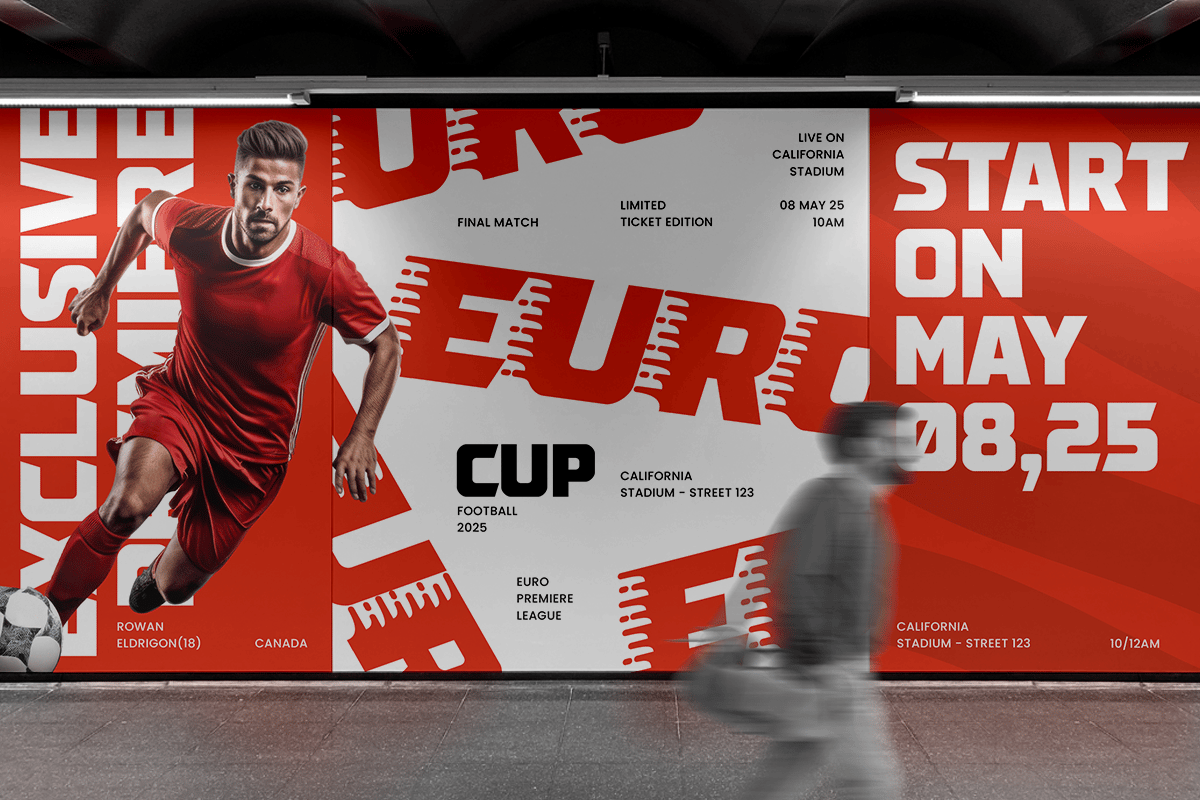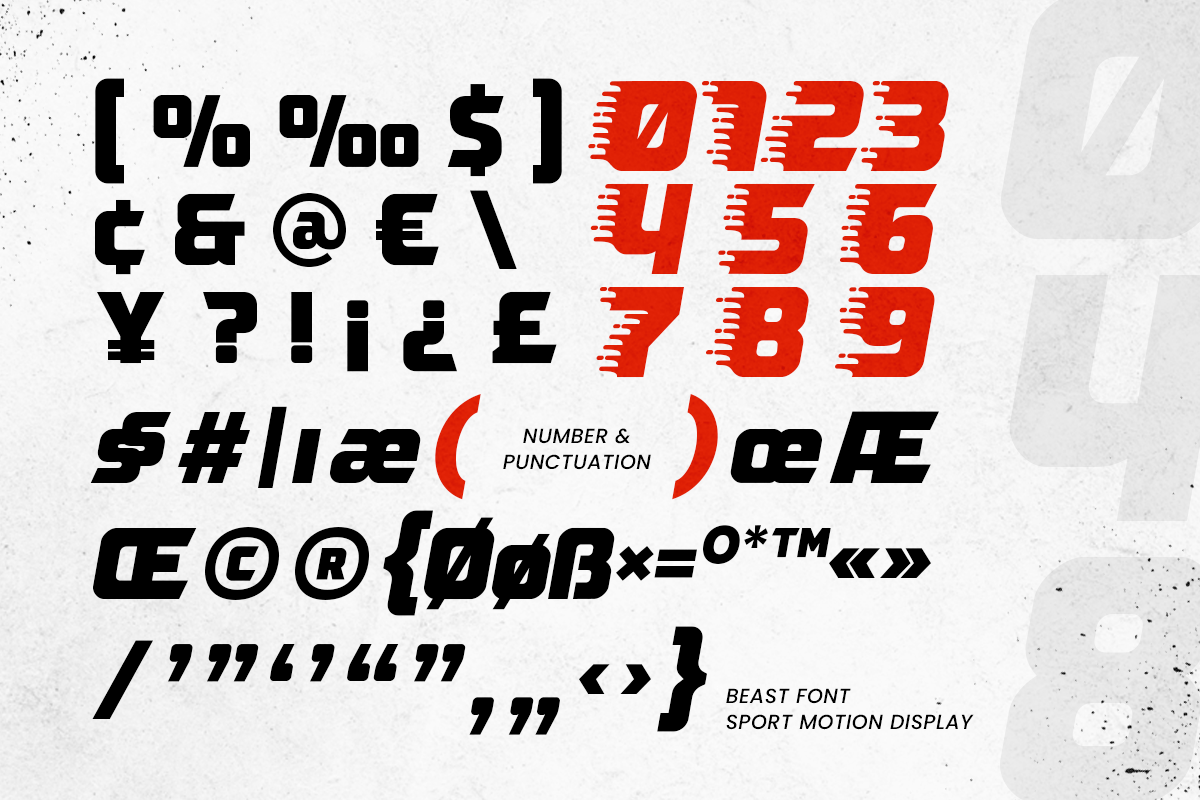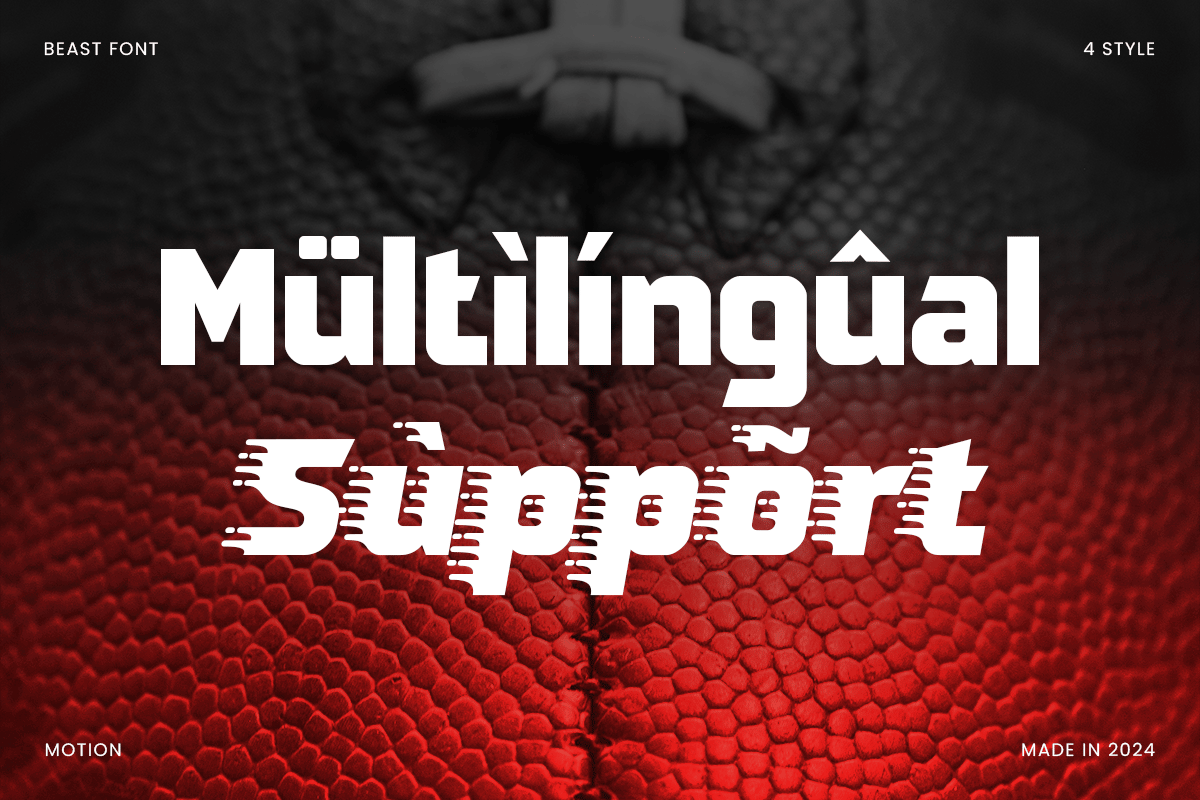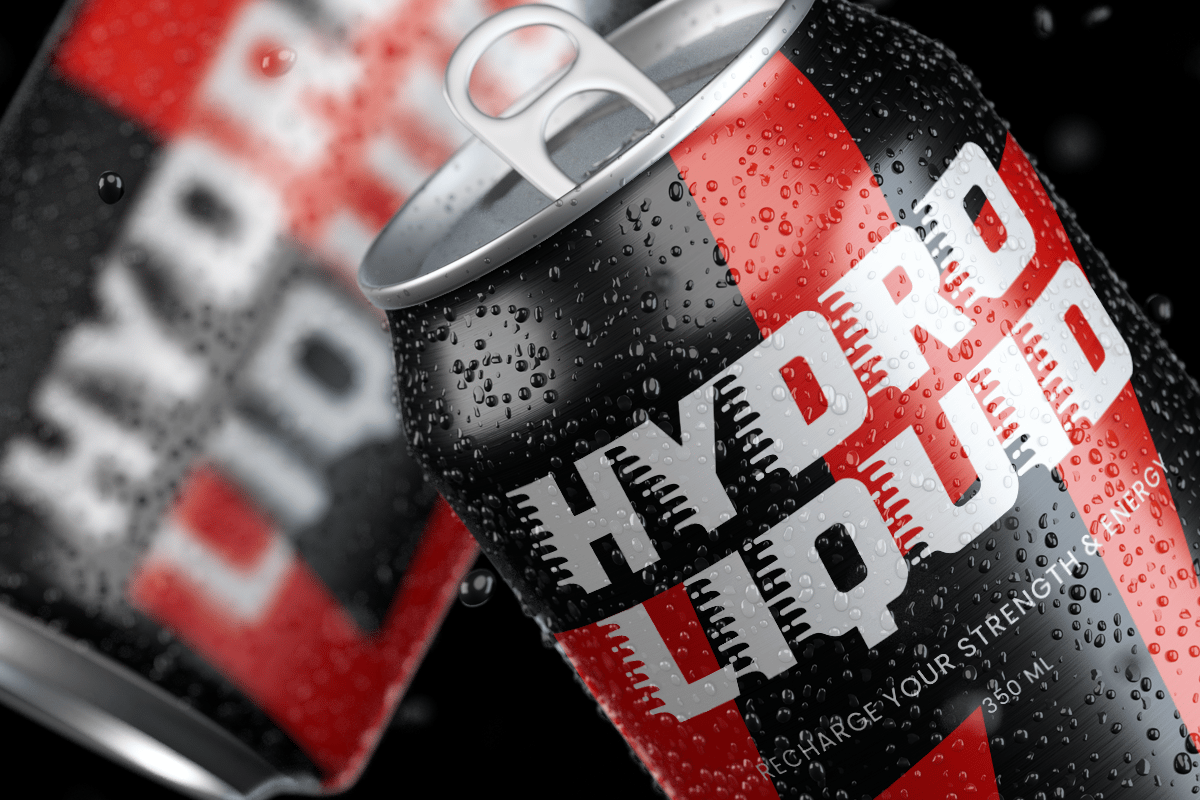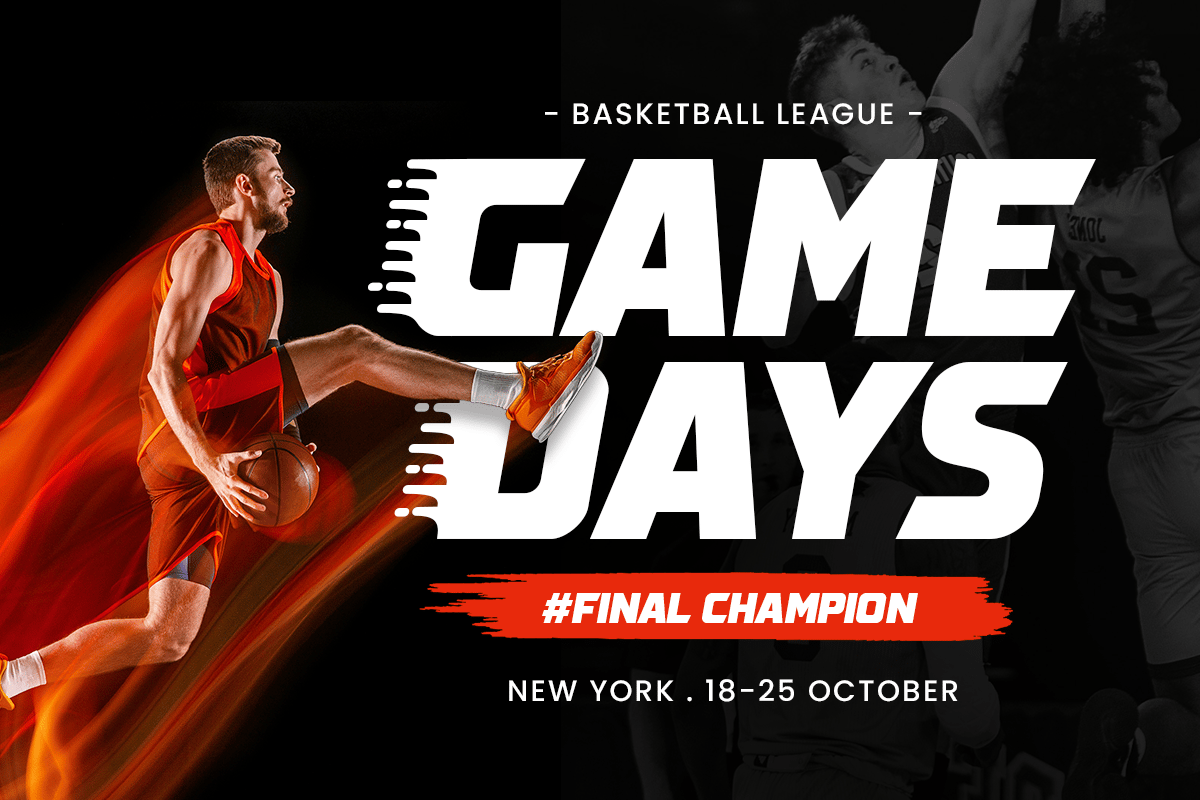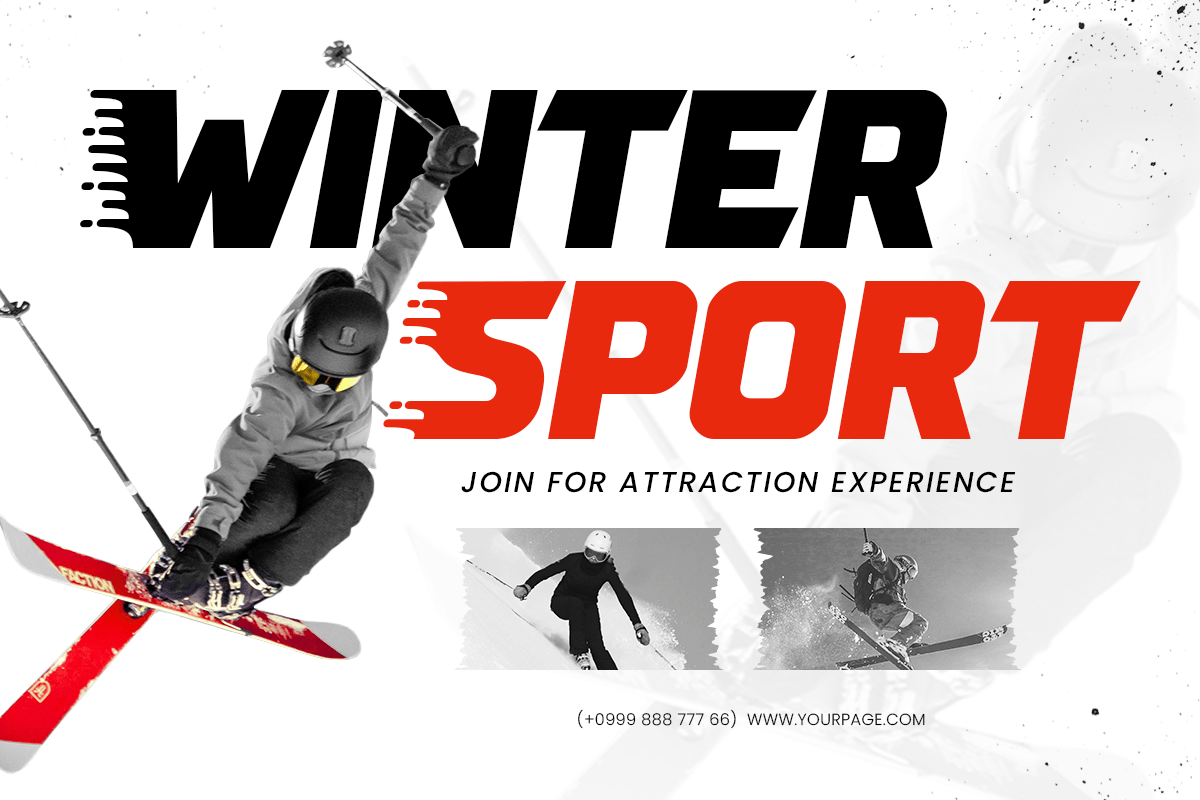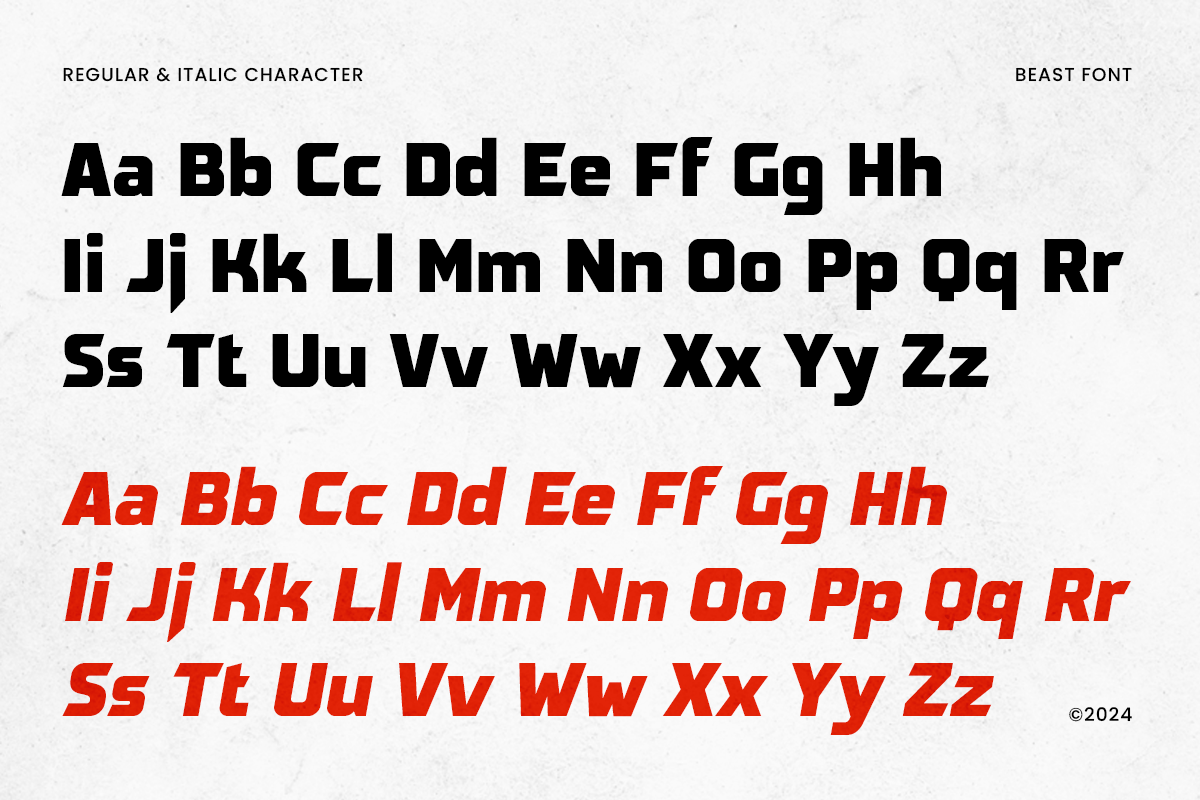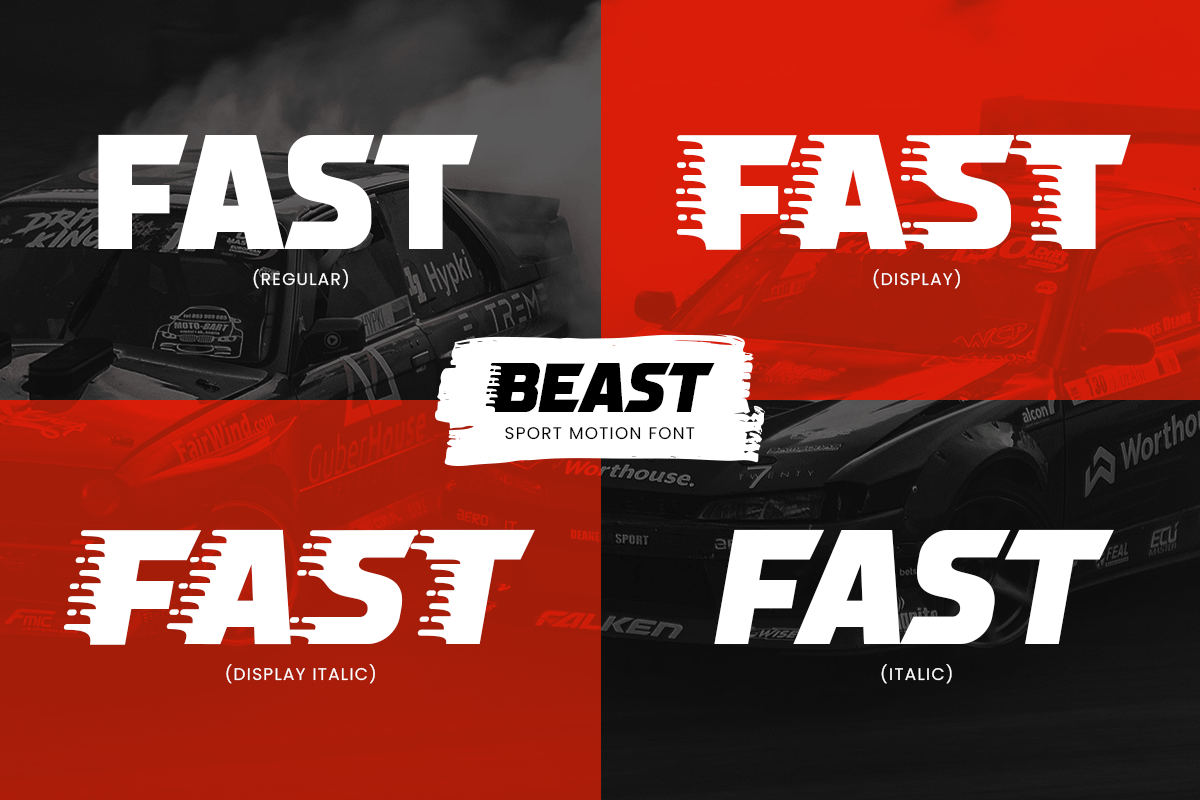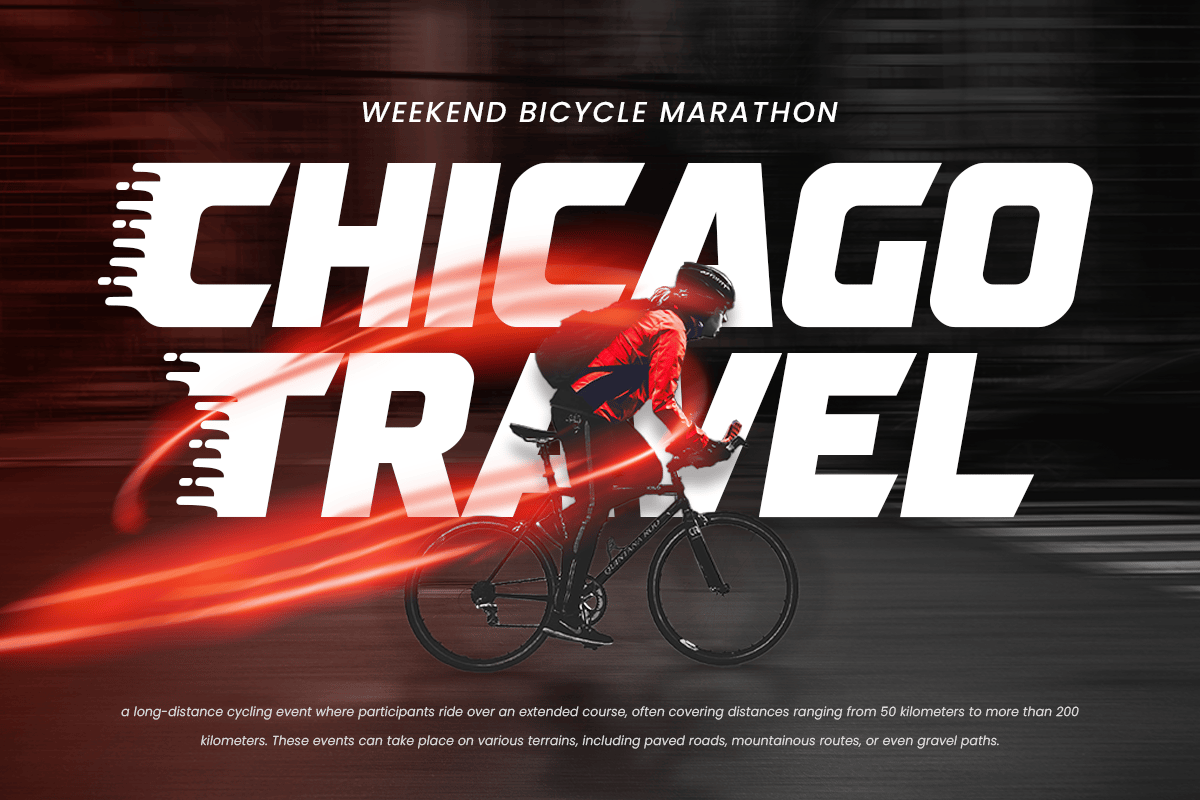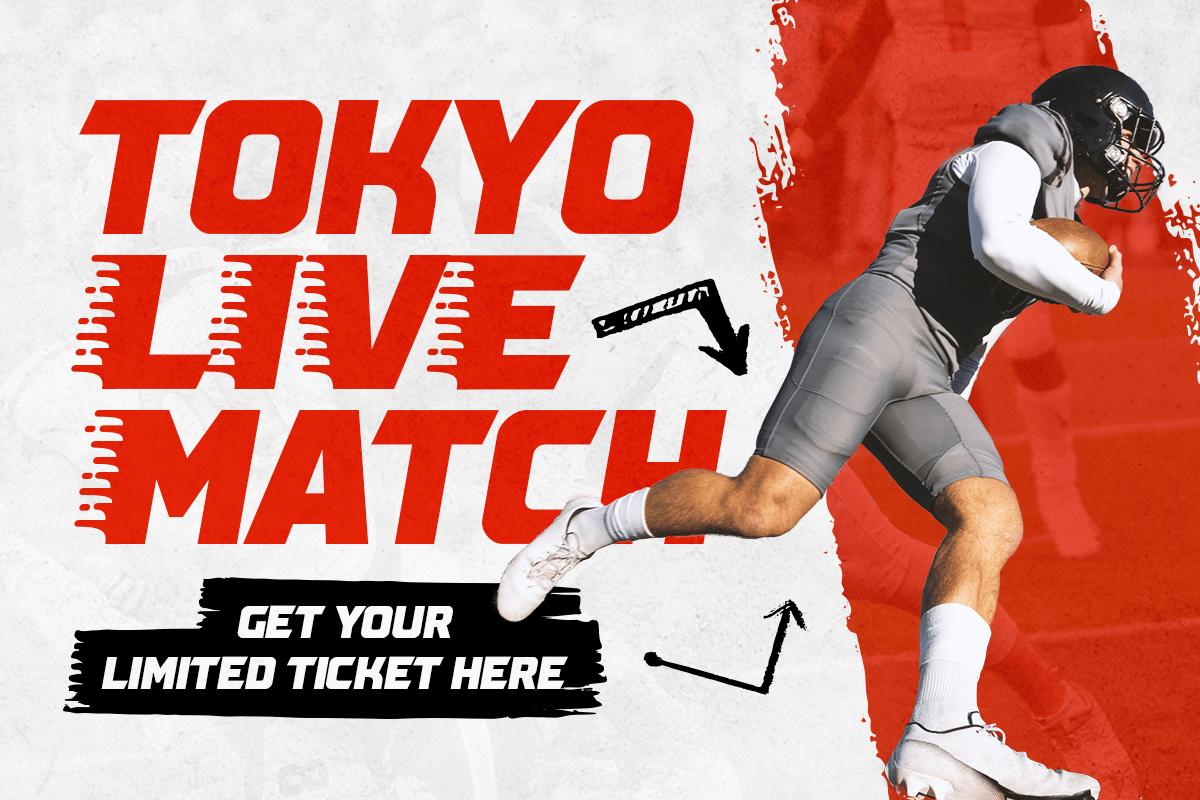
Beast – Sport Motion Font
Beast is a sport motion font designed for impact and movement. Its bold strokes and dynamic angles create a sense of speed and power, making it an ideal choice for projects that demand energy and action. Whether it’s for sports branding, athletic team logos, or powerful headlines, Beast brings an unrivaled intensity to your design work.
The strong and confident characters of Beast command attention, emphasizing a forward momentum that suits a wide range of applications from sports gear advertisements to active lifestyle magazines. Its design incorporates elements that suggest agility and force, adding a competitive edge to your visual content.
Choose Beast for projects that require a typeface full of spirit and motion. This font is crafted to convey strength, making it perfect for campaigns that need to inspire and motivate audiences with its robust and animated appearance.
Beast Sport Motion Font Features:
- Bold Motion Characters Ready
- Available in 4 Styles: Regular, Italic, Display, Display Italic
- Unique Punctuation, Number, and Symbol
Multilingual Characters available for:
Afrikaans, Albanian, Asu, Basque, Bemba, Bena, Breton, Chiga, Cornish, Dutch, English, Estonian, Filipino, Finnish, Friulian, Galician, German, Gusii, Indonesian, Irish, Italian, Kabuverdianu, Kalenjin, Kinyarwanda, Luo, Luxembourgish, Luyia, Machame, Makhuwa-Meetto, Makonde, Malagasy, Manx, Morisyen, North Ndebele, Nyankole, Oromo, Portuguese, Quechua, Romansh, Rombo, Rundi, Rwa, Samburu, Sango, Sangu, Scottish Gaelic, Sena, Shambala, Shona, Soga, Somali, Spanish, Swahili, Swedish, Swiss.